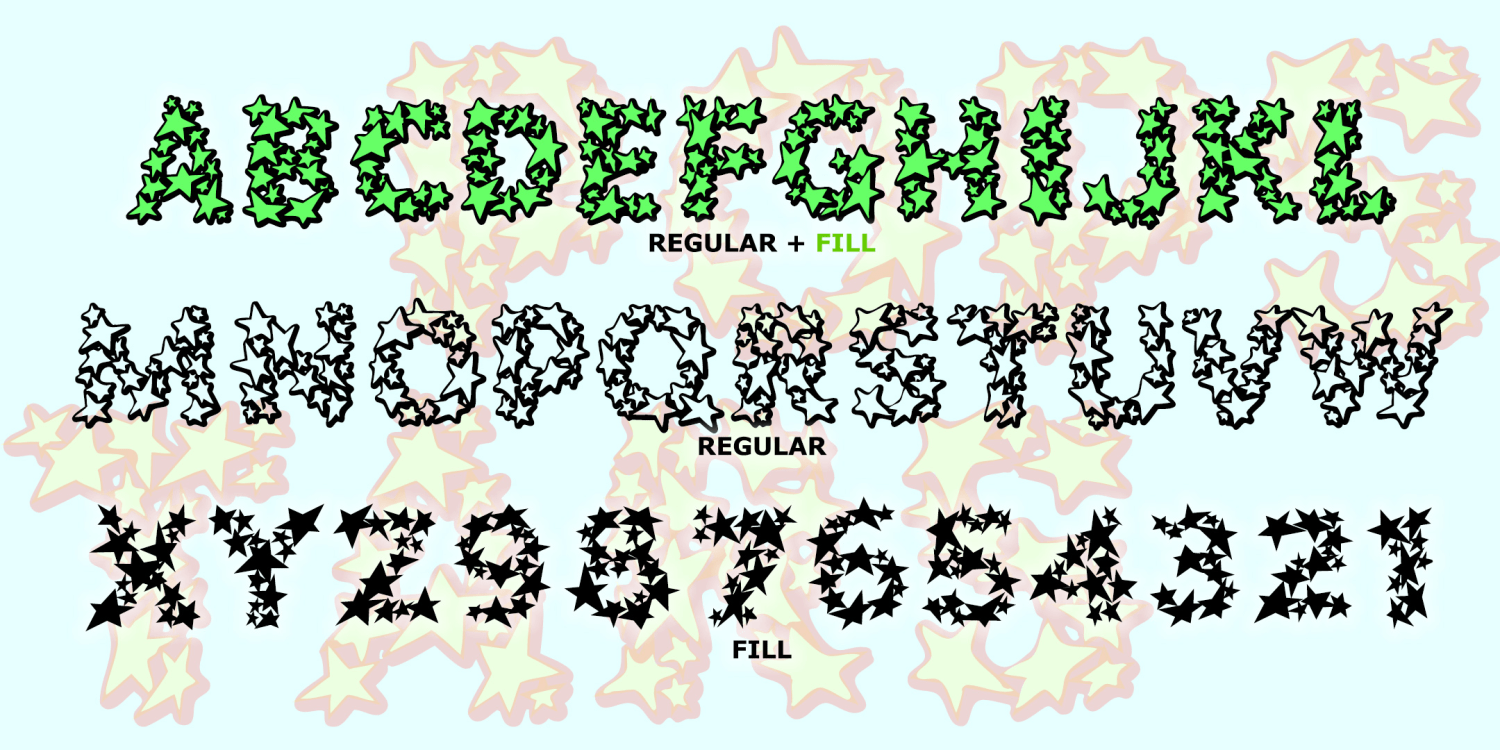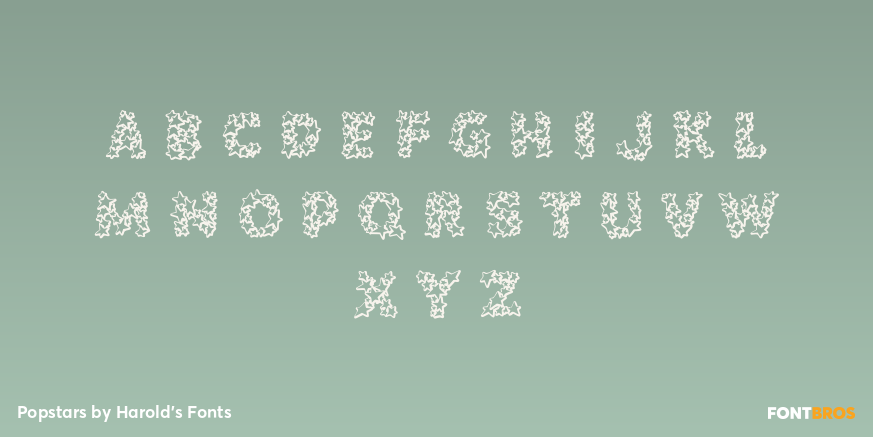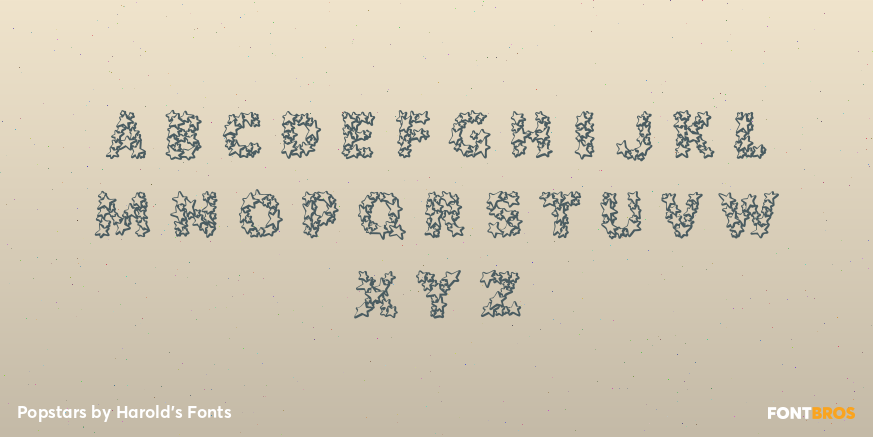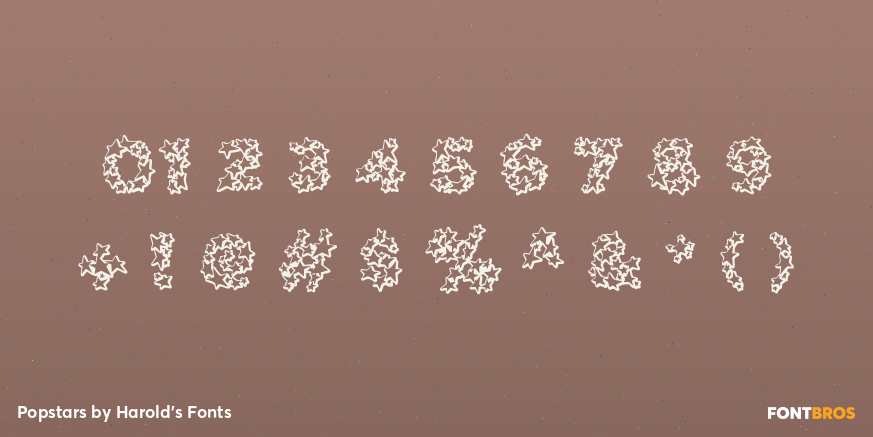
Popstars
Font Family by Harold's Fonts
Inspired by the word BEATLES on the cover of their Magical Mystery Tour album. Set includes Regular and Fill fonts which can be used separately or layered together in different colors.